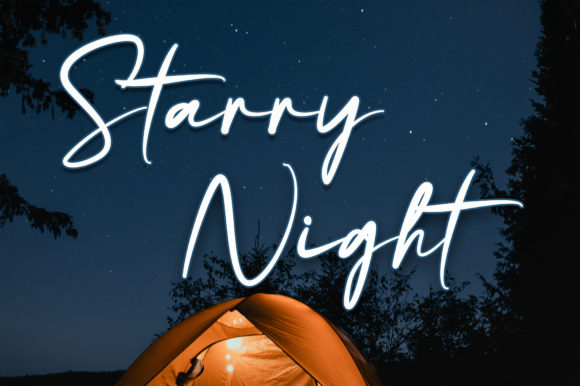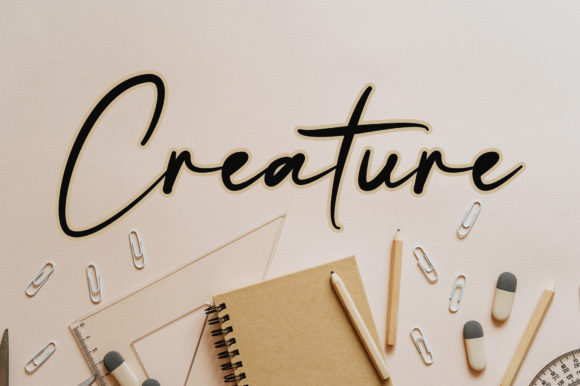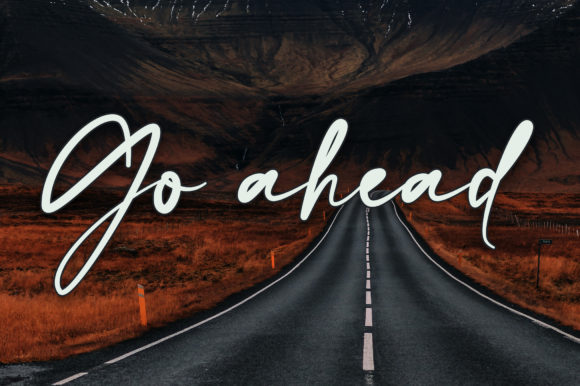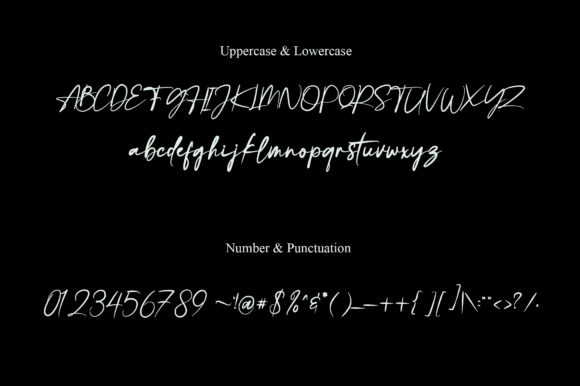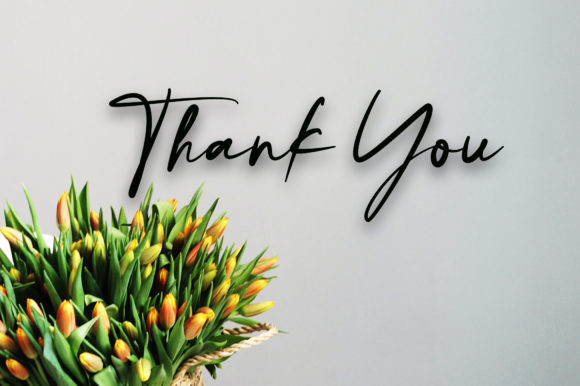
The Perfect Blend of Nature and Design
Imagine yourself sitting by a campfire on a crisp, starry night, surrounded by the soothing sounds of the wilderness. The crackling flames, the rustling leaves, and the gentle breeze create a symphony of serenity that inspires creativity. It’s in moments like these that the Camping Ground Font comes alive, infusing your designs with a sense of freedom and adventure.
Camping Ground Font is a beautiful, handwritten font that exudes a carefree spirit, perfect for creating eye-catching logos, branding, and quotes. Its flowing lines and unique touches bring a touch of personality to any design, making it stand out from the crowd. For designers, this font is a valuable asset, offering a fresh perspective and a chance to add some whimsy to their work.
Camping Ground Font Key Features
- Size: The font includes a range of weights, from Thin to Black, with corresponding sizes to suit various design requirements.
- Resolution: The font is optimized for high-resolution displays, making it suitable for use in digital applications, such as websites, mobile apps, and social media platforms.
- Unique Characteristics: The Camping Ground Font features a unique blend of rustic and modern elements, with subtle texture and imperfections that evoke a sense of natural, outdoor charm.
- Legibility: The font is designed to be highly legible, even at small sizes, making it an excellent choice for body text, headings, and titles in various design contexts.
Camping Ground Font Review
Overall, I’d say the Camping Ground Font is a solid choice for outdoor-themed projects. Here are the things that really shine: ✨
- Unique, hand-drawn feel that adds a touch of personality to designs
- Good legibility, even at smaller font sizes
- Comes in a range of weights and styles to suit different design needs
- Some characters, like the ‘g’ and ‘p’, can be a bit wonky and may require adjustments
- Not all weights and styles are equally well-designed – some feel a bit rough around the edges
- Lacks a consistent, high-quality webfont version
Overall, I think the Camping Ground Font is a great choice for designers who want to add some personality to their outdoor-themed projects. While it’s not perfect, its unique feel and good legibility make it a solid option. Just be aware of its limitations and be prepared to do some tweaking to get the best results.
The Camping Ground Font is ideal for outdoor-themed designs, such as camping trip brochures, park signage, and outdoor adventure websites.
It’s also great for creating a rustic or vintage feel in your designs, making it perfect for wedding invitations, food labels, and other creative projects.